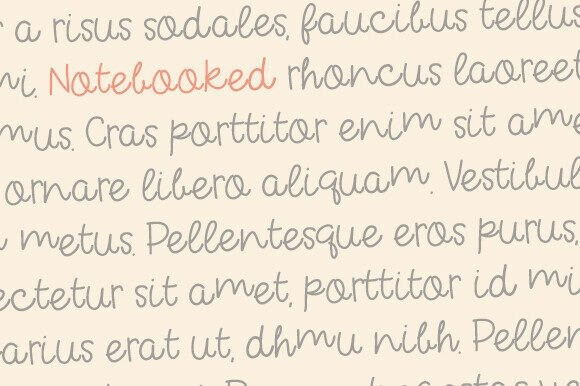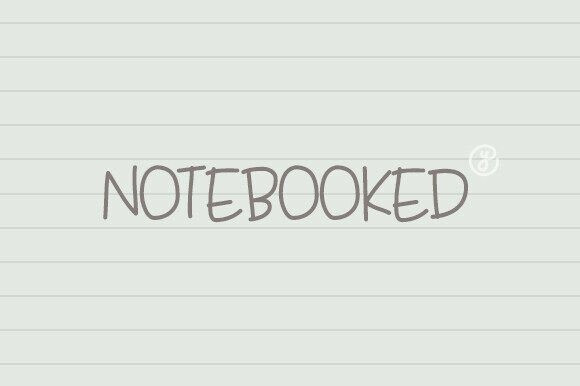
Notebooked Font
Notebooked Font, a captivating new typeface inspired by the tender ache of love and the bittersweet beauty of heartfelt memories. Designed for dreamers, romantics, and storytellers alike, it is more than just a font—it’s an emotional experience. With its graceful curves, delicate imperfections, and nostalgic charm, this font captures the raw essence of sentimentality, making it perfect for projects that tug at the heartstrings.
Notebooked Font is meticulously crafted to evoke deep emotions and timeless romance. Whether you’re creating designs that celebrate love, longing, or cherished memories, Notebooked delivers a touch of elegance and vulnerability. It’s the typographic embodiment of a love letter—personal, intimate, and unforgettable.
Notebooked Font combines soft, flowing lines with subtle imperfections, creating a balance of simplicity and emotional depth. Its design feels both modern and timeless, ensuring it resonates across generations.
Each character in Notebooked Font has been thoughtfully designed to reflect the nuances of human emotion. From its gentle curves to its slightly uneven edges, this font feels alive—like a whispered confession or a tear-stained page.